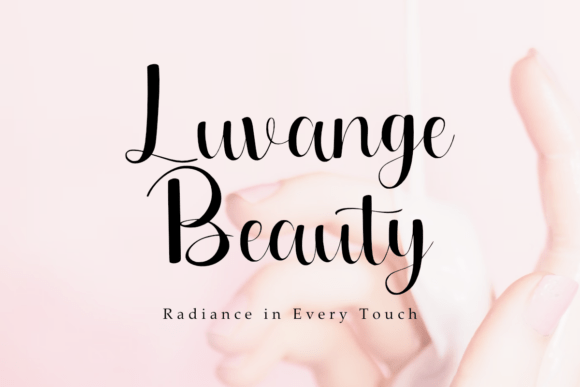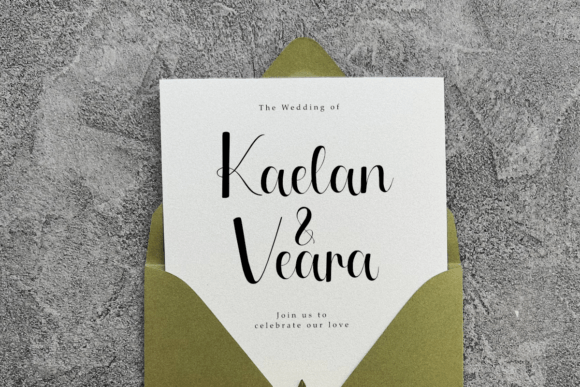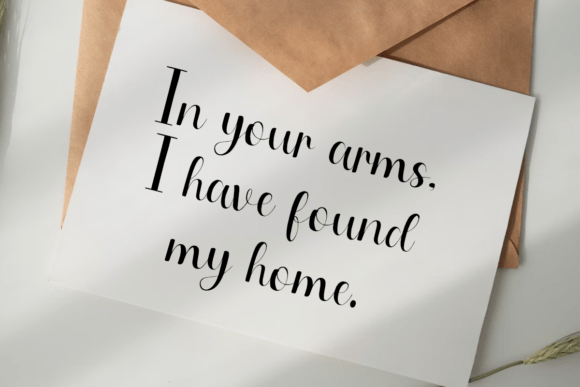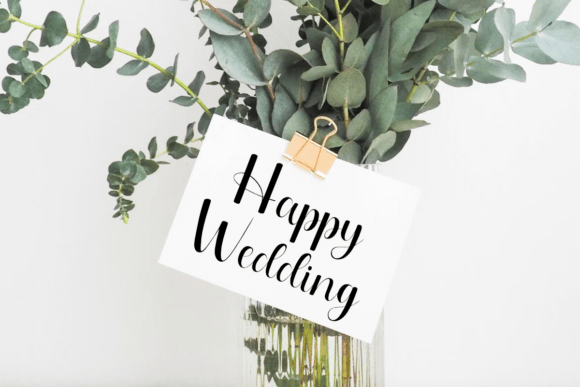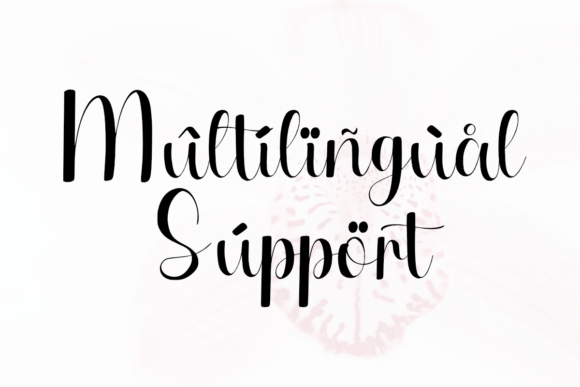
Introduction to Meliora Font
As a designer, there’s nothing quite like the thrill of bringing a creative project to life. The moment when all the elements come together, and your vision takes shape – it’s a feeling like no other. And when it comes to adding the perfect finishing touch, the right font can make all the difference. For those looking to elevate their designs, I’m excited to introduce you to a game-changer: the Meliora Font.
This elegant and modern script font boasts smooth and luxurious strokes, perfect for making a statement in your designs. Whether you’re creating wedding invitations, branding, logos, quotes, or greeting cards, Meliora Font is sure to give your work an exclusive touch. With its feminine and stylish look, it’s no wonder why designers are falling in love with this design resource.
Key Features of Meliora Font
- High-quality design resource with a unique and creative touch, perfect for various projects.
- Features a transparent background, allowing for seamless integration with any design or creative project.
- Designed with a high resolution of 300 DPI, ensuring crisp and clear display on various devices.
- Comes in a single weight and style, providing a clean and modern aesthetic for any design project.
Honest Review: Meliora Font
As a designer, I’m always on the lookout for high-quality design resources to elevate my creative projects. Recently, I stumbled upon the Meliora Font, and I’m excited to share my honest review with you.
- ✨ Elegant and sophisticated design aesthetic, perfect for luxury and high-end branding projects.
- ✨ Large character set with a wide range of languages supported, making it a versatile font for global projects.
- ✨ Transparent background option available for seamless integration with various design elements.
However, I do have some reservations:
- ⚠️ Limited font weight options, which might restrict its use in certain design contexts.
- ⚠️ No web font version available, which could lead to compatibility issues in some browsers.
Meliora Font is ideal for use in creative projects that require a high-quality, professional font. It’s perfect for designing logos, brochures, business cards, and other marketing materials that require a clean and modern design.
Getting the Most Out of Meliora Font
To get the most out of Meliora Font, be sure to use it with a transparent background. This will allow you to easily combine the font with other design elements. Additionally, use the font in conjunction with other high-quality design resources to create a cohesive and professional design.
Alternatives to Meliora Font
Open Sans is a free, high-quality font that’s perfect for design projects requiring a clean and approachable look. This sans-serif font features a transparent background and is highly legible, making it ideal for digital displays. You can download Open Sans for free, and it’s available in various weights and styles. When to use: For projects that require a friendly and approachable tone, such as corporate websites, social media, and educational materials. How it compares to Meliora Font: Open Sans has a more neutral and friendly design compared to Meliora Font’s sophisticated and elegant style.